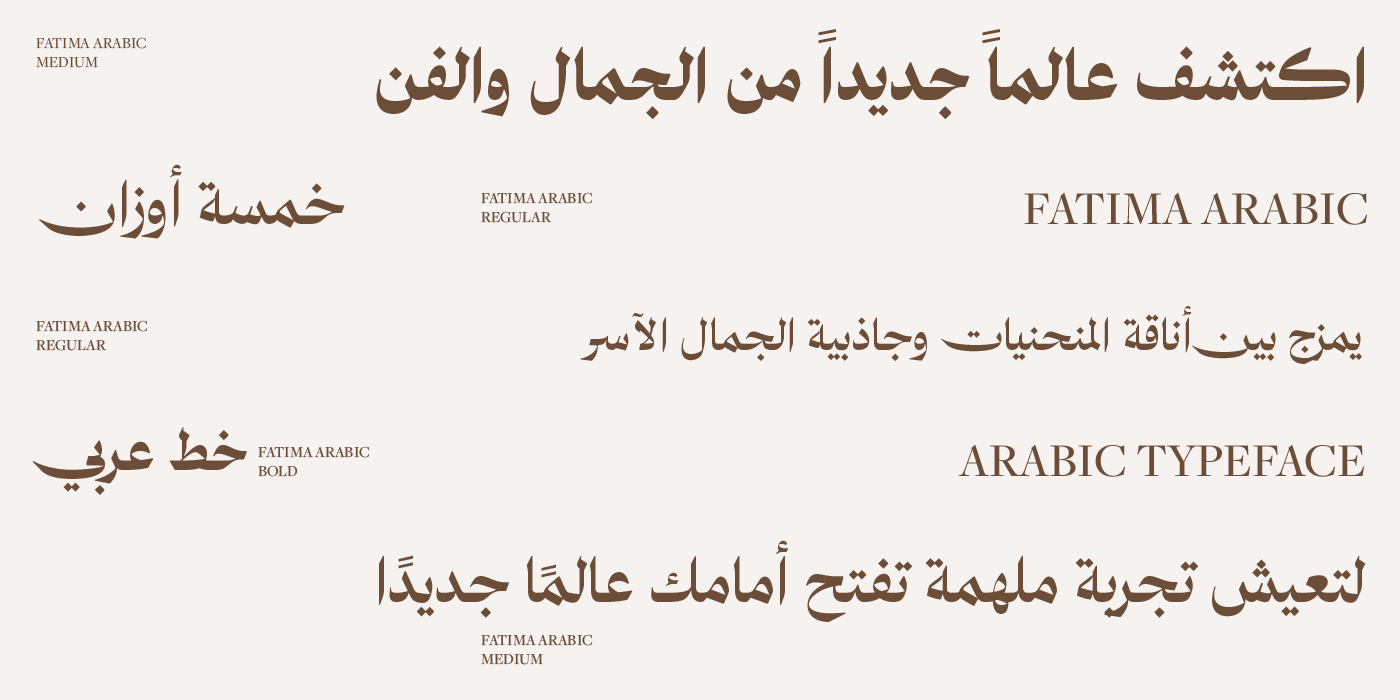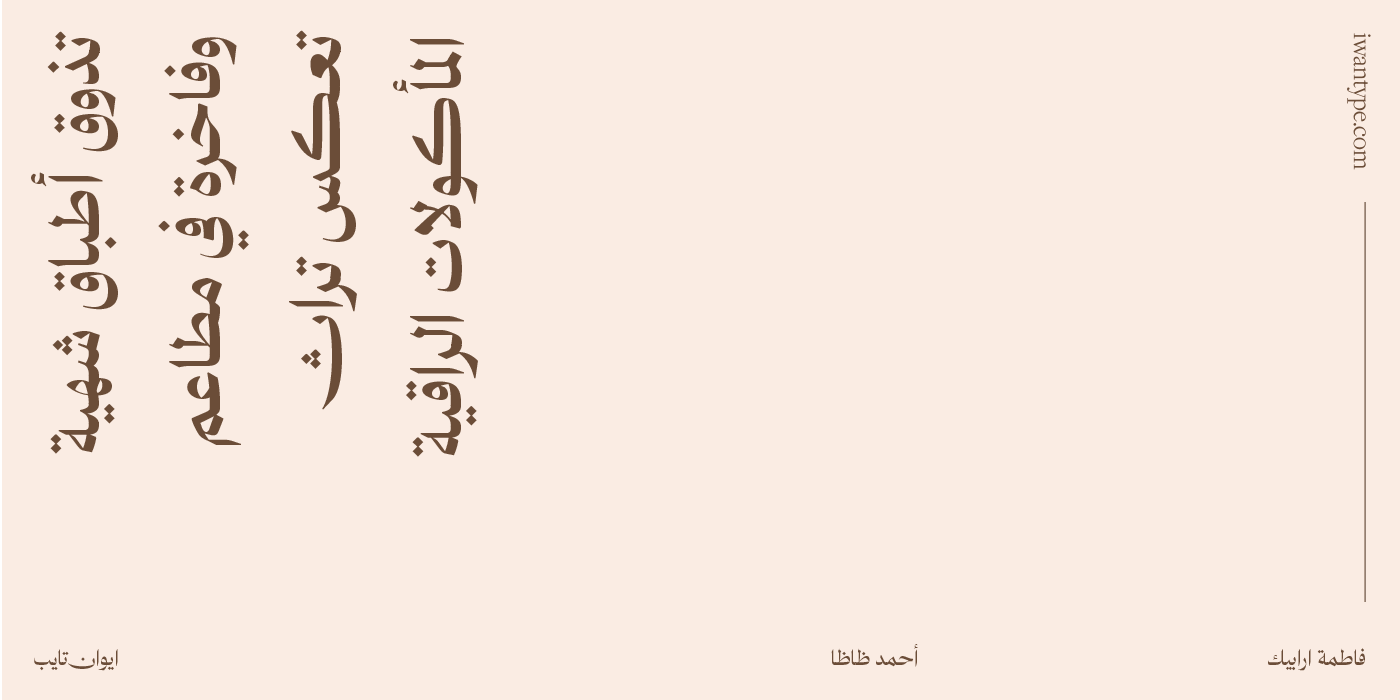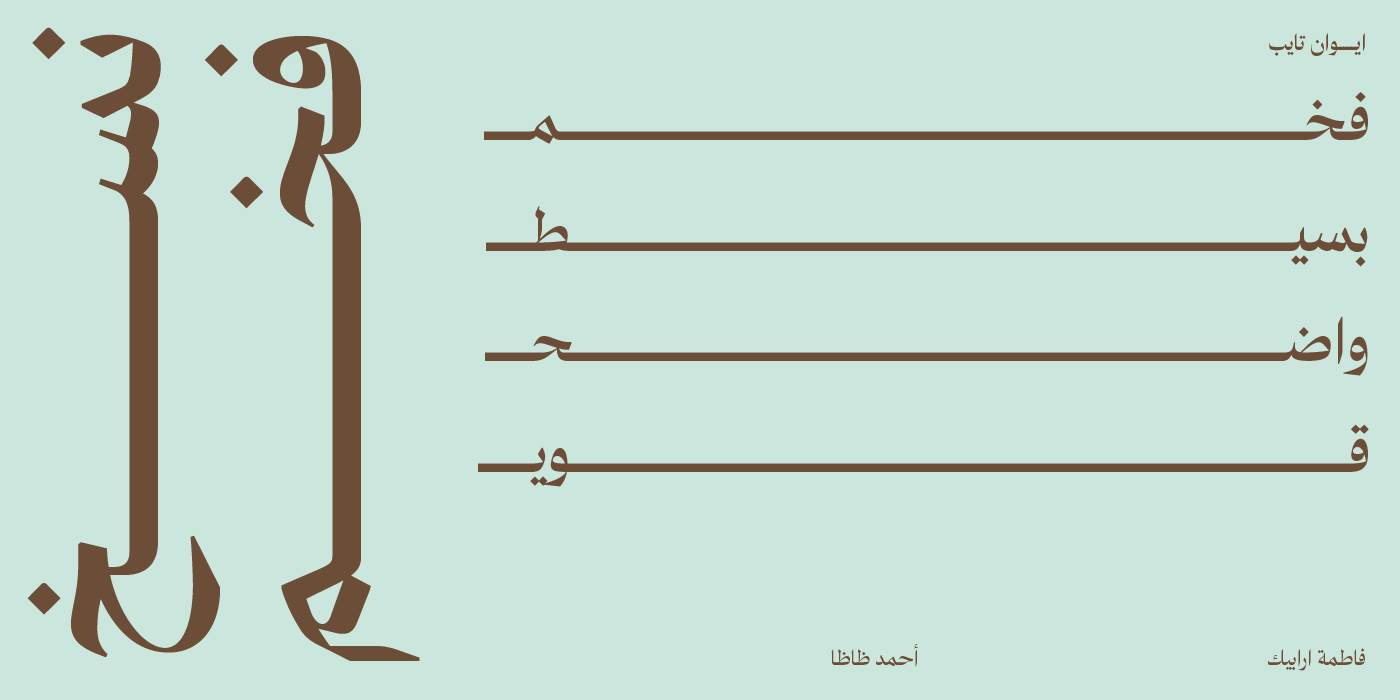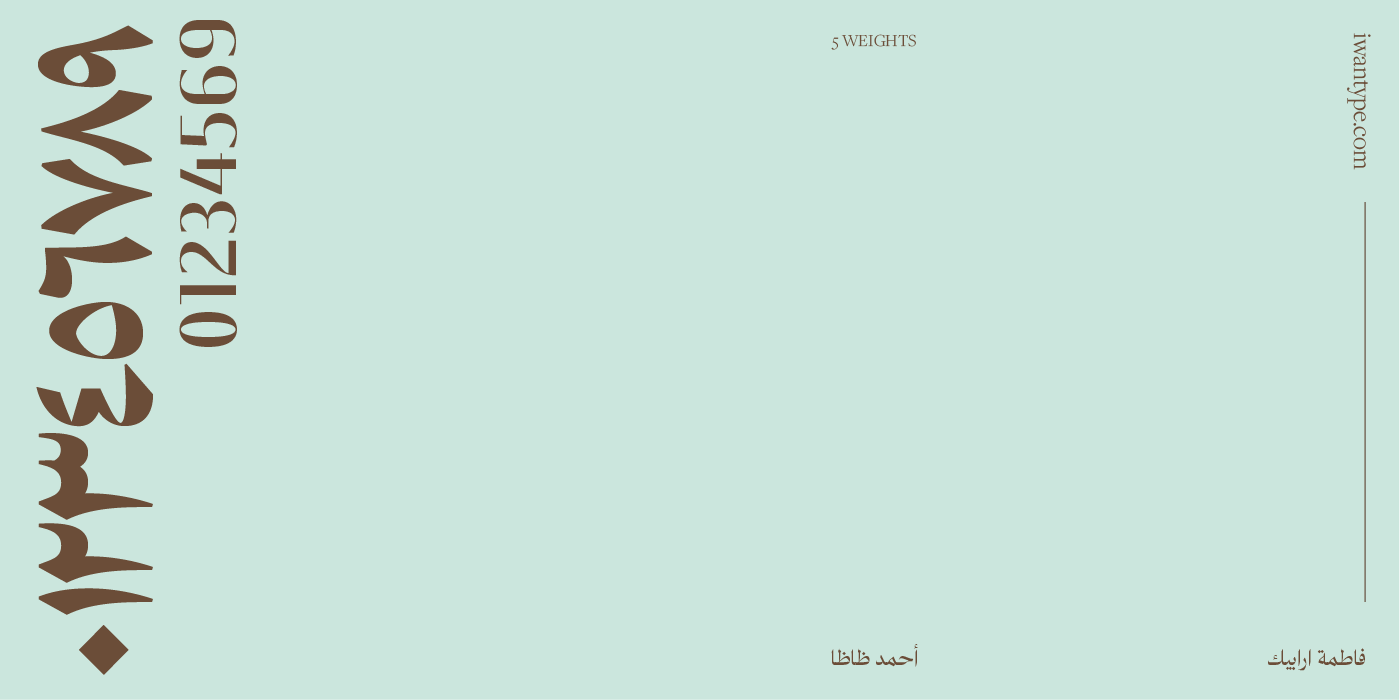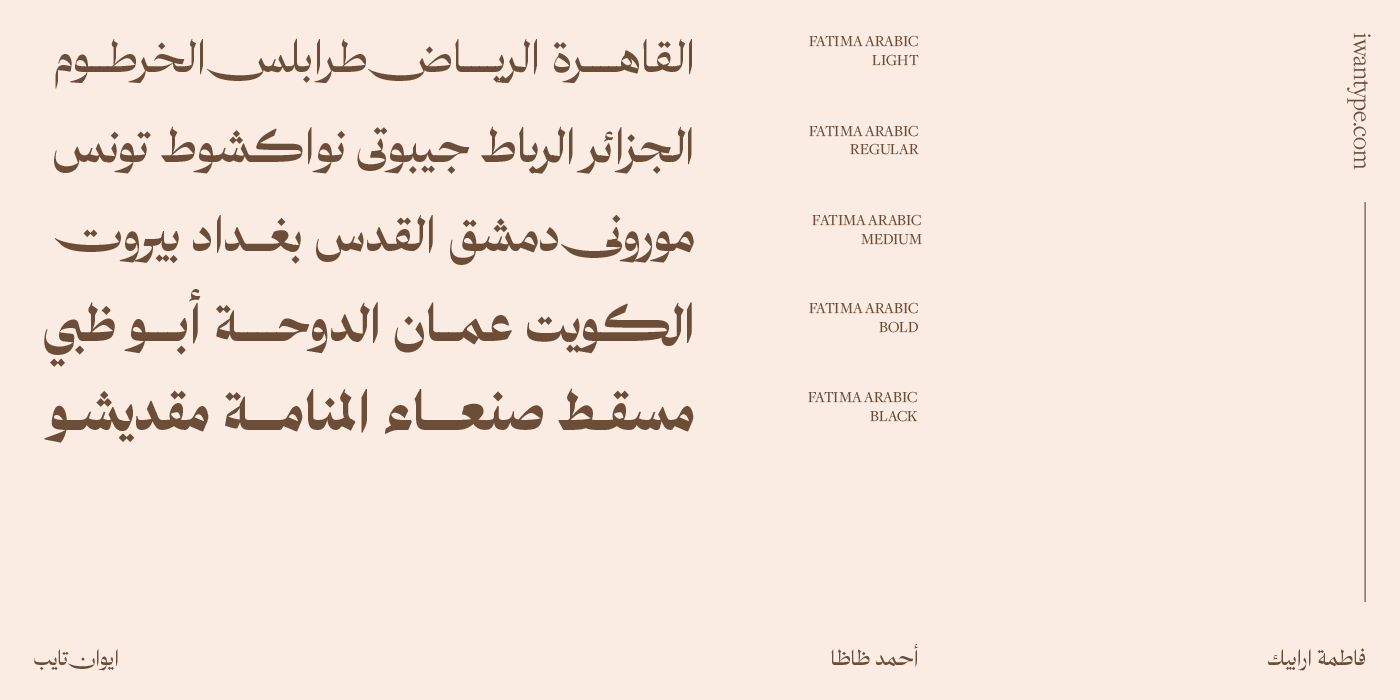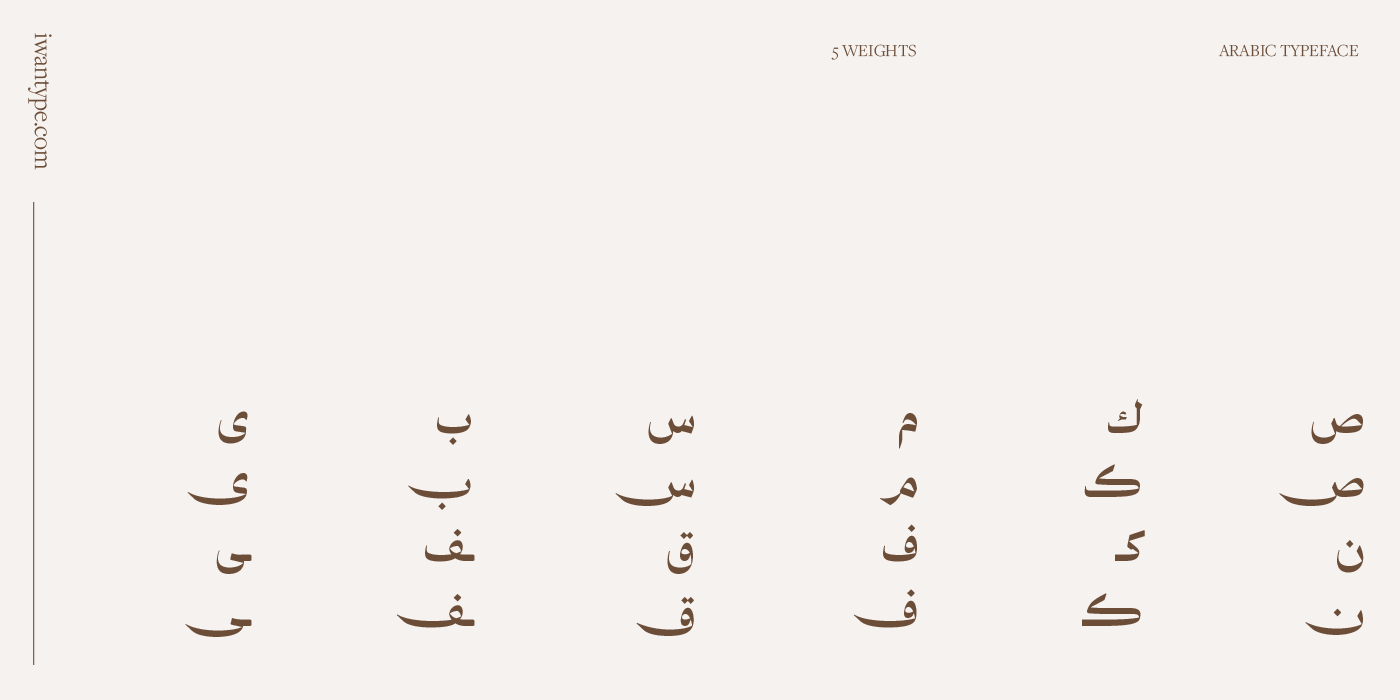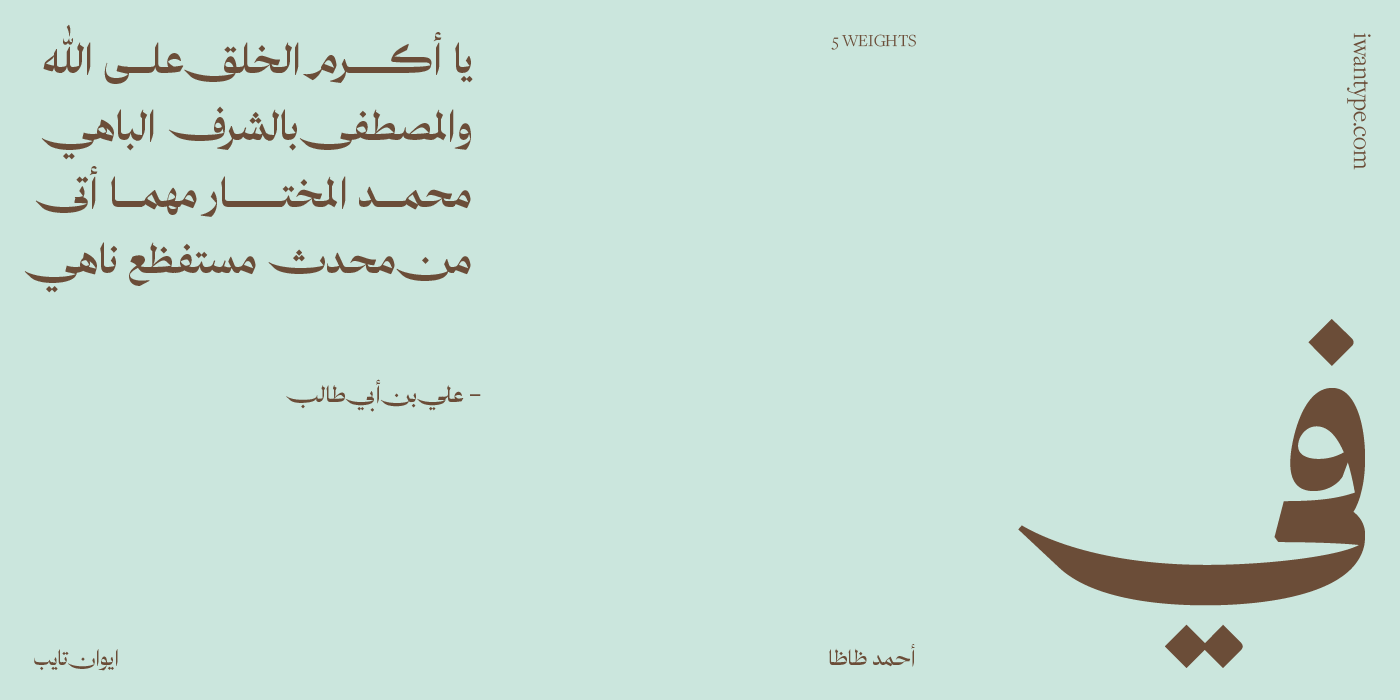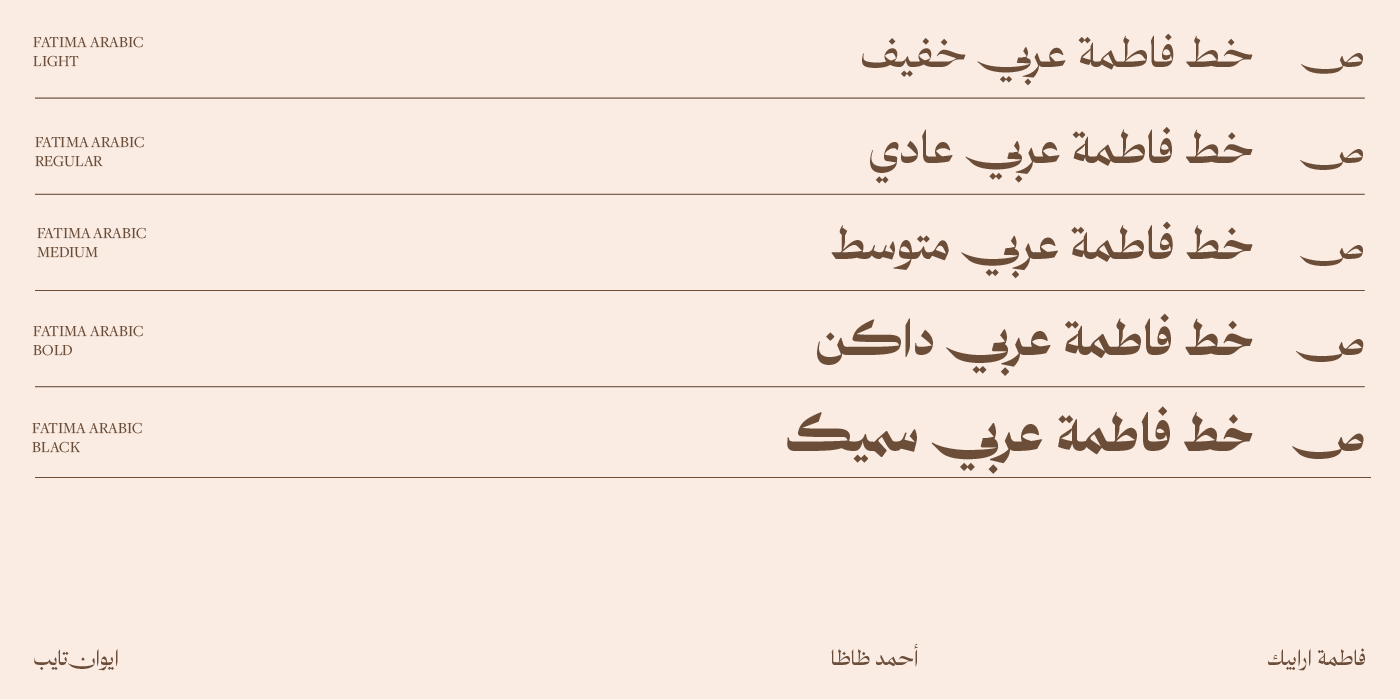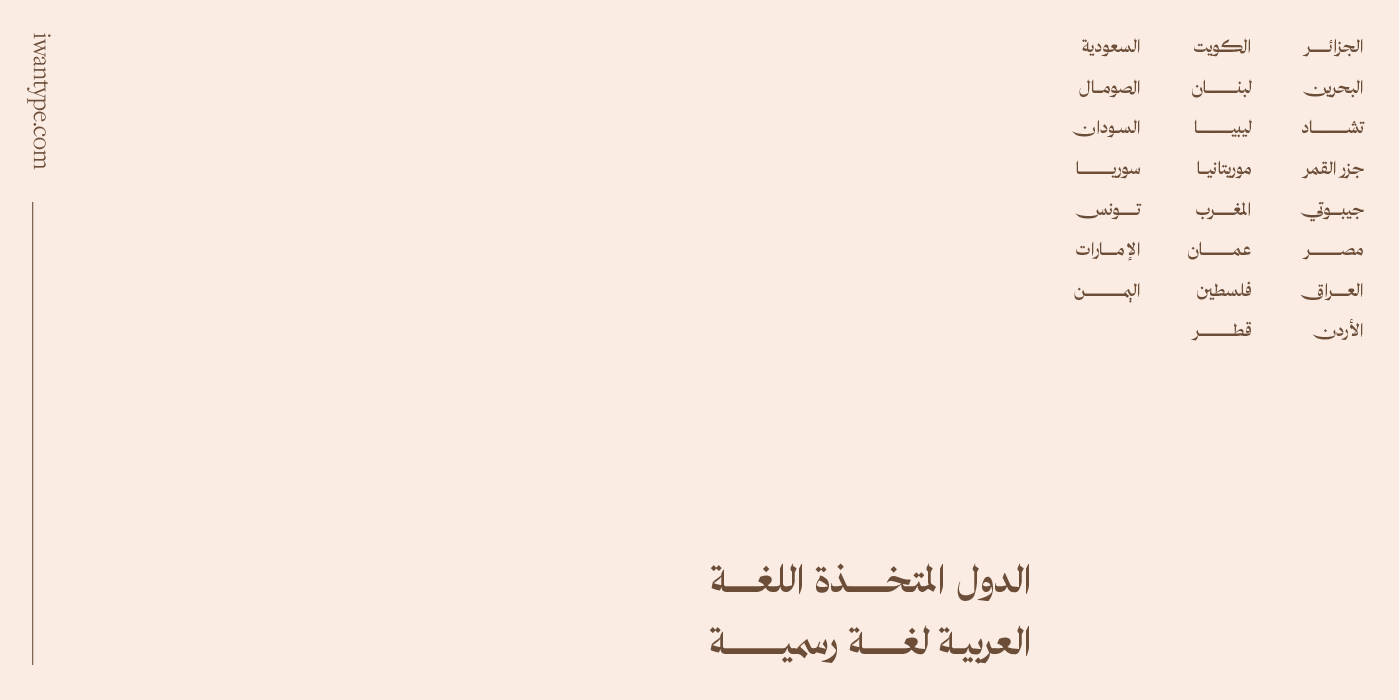
Fatima Arabic typeface - خط فاطمة عربي
Fatima Arabic is a modern Arabic typeface inspired by the Naksh style. It stands out from traditional fonts with its high contrast and proportions. The typeface has OpenType features, including ligatures and style sets, and comes in 5 weights, from Light to Black. Fatima Arabic is ideal for a variety of uses, including print, digital, and screen. It is a versatile typeface that can be used for both formal and informal applications. The typeface has a high contrast between thick and thin strokes, which gives it a modern and stylish appearance. it has well-balanced proportions, which makes it easy to read and use. it includes a variety of OpenType features, such as ligatures and style sets, which give you more creative options when using the typeface. It comes in 5 weights, from Light to Black, which gives you more flexibility to choose the right weight for your needs.